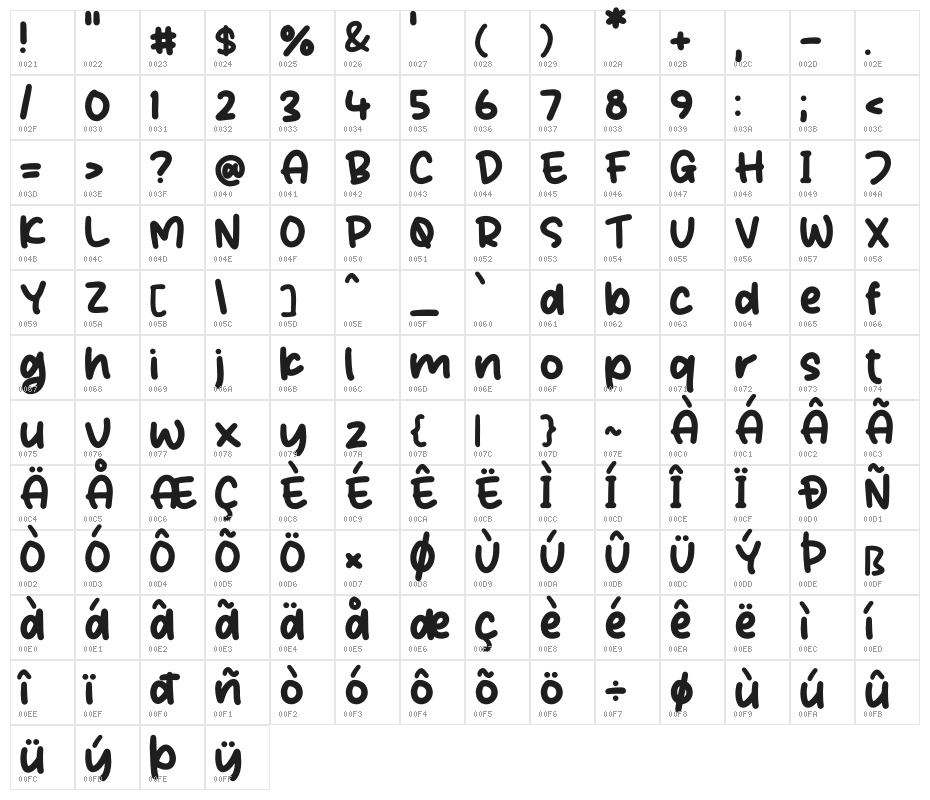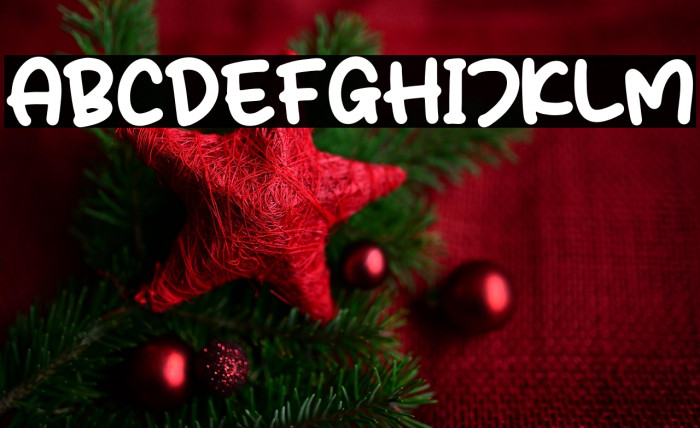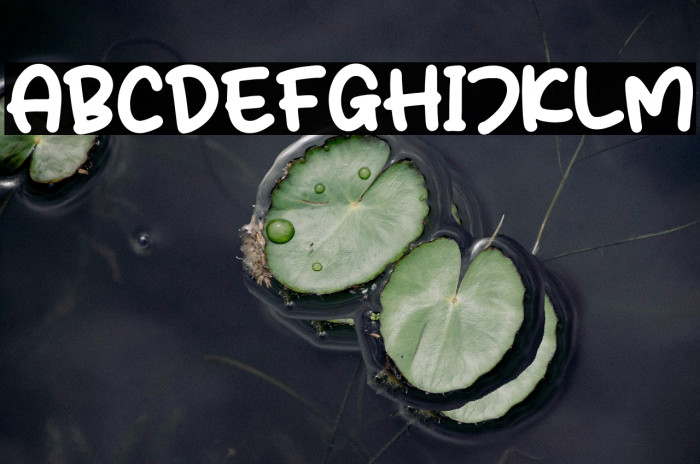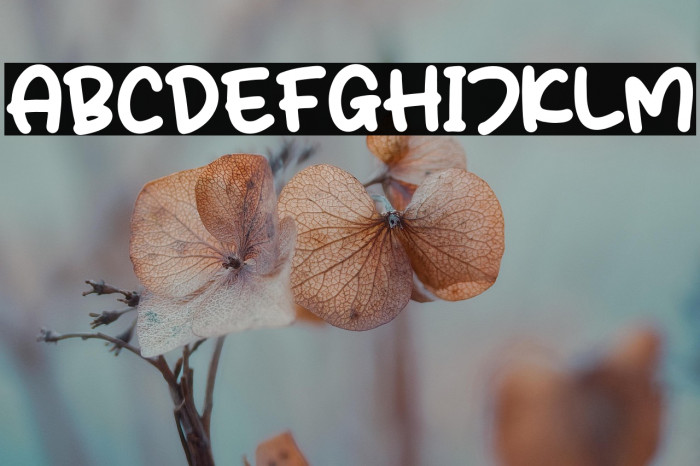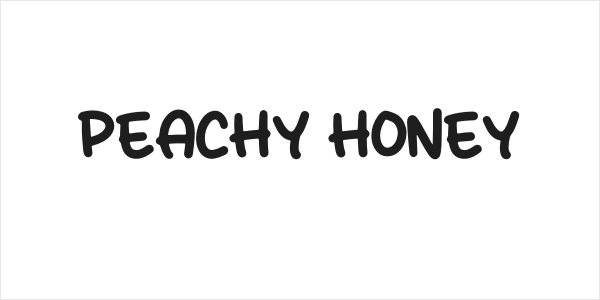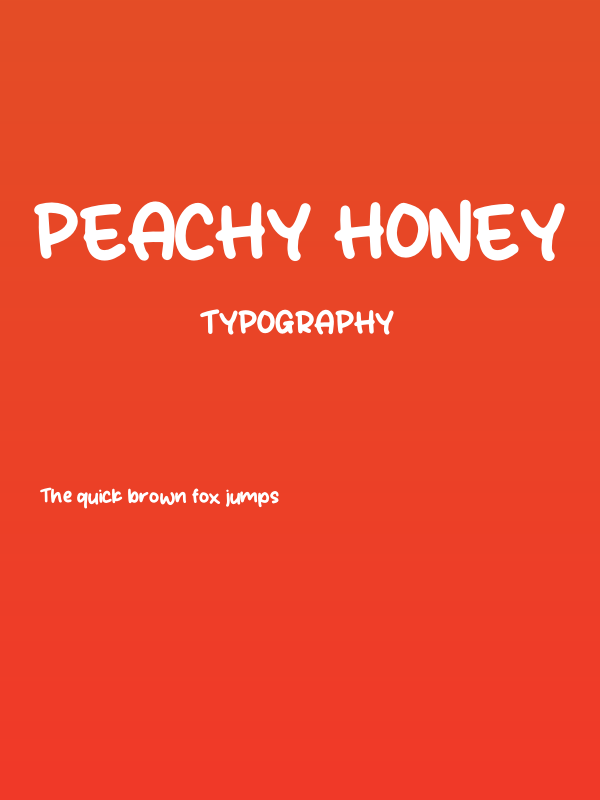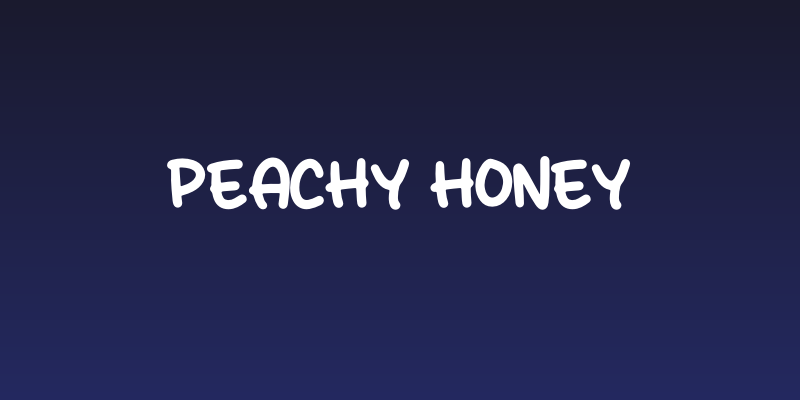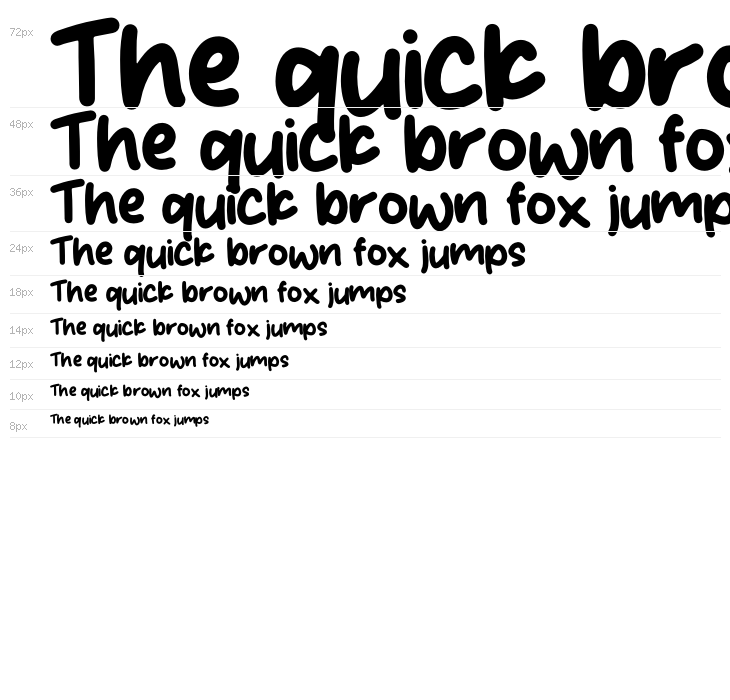
PEACHY HONEY Font
PEACHY HONEY Description
This playful and bold font features a handwritten style with rounded edges and a casual, friendly appearance. The letters are thick and consistent in weight, giving them a strong presence on the page. The uppercase and lowercase characters maintain a uniform style, with a slightly whimsical touch that adds personality. Numbers and special characters are designed to match the overall aesthetic, ensuring a cohesive look. The font's informal and approachable design makes it ideal for projects that require a touch of fun and creativity.
| Proposed Projects | Ideal for children's books, playful branding, greeting cards, and social media graphics. |